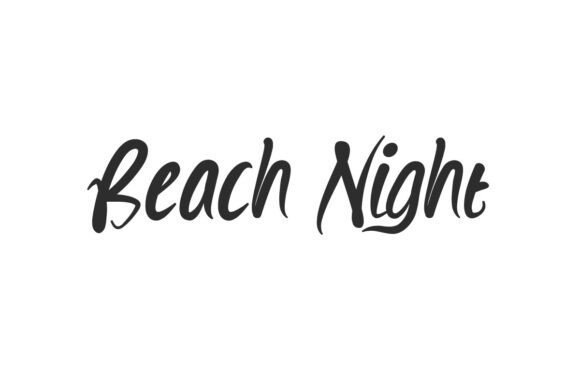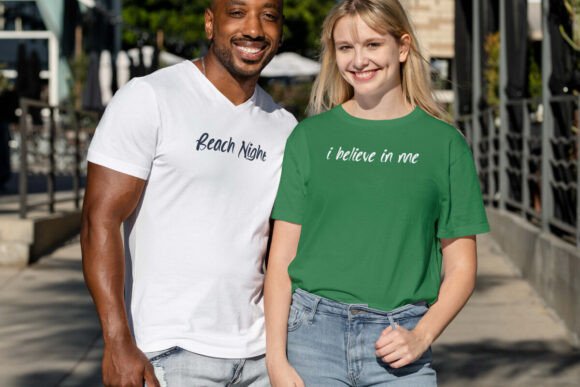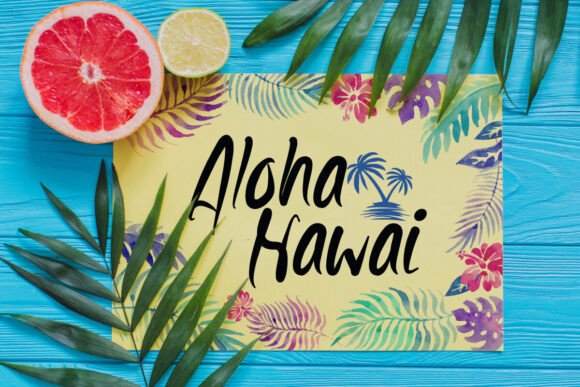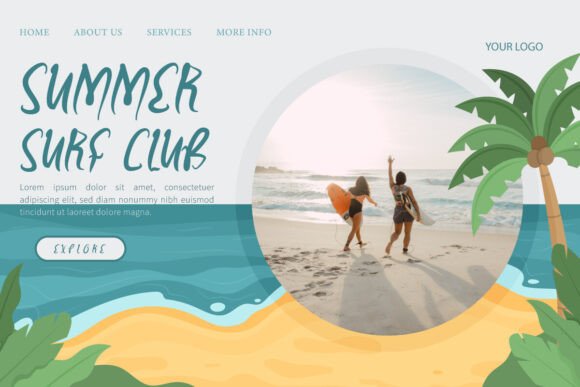
Beach Night Font: A Stylish Handwritten Script for T-shirt Design
About the Beach Night Font
We are excited to introduce Beach Night Font, a must-have typeface for any serious designer. Beach Night Font is a swirl handwriting font with letters in a unique, quite bold, sophisticated, and fresh look. You can mix and match your best combination. It works best for use in your design needs, such as album artwork, apps/blog/website pages, book titles, branding, cards, covers, frame art, invitations, logos, packaging, poster design, quotes, sign boards, stationery designs, t-shirt screen printing, and more.
Beach Night Font Usage Examples
Beach Night Font Example